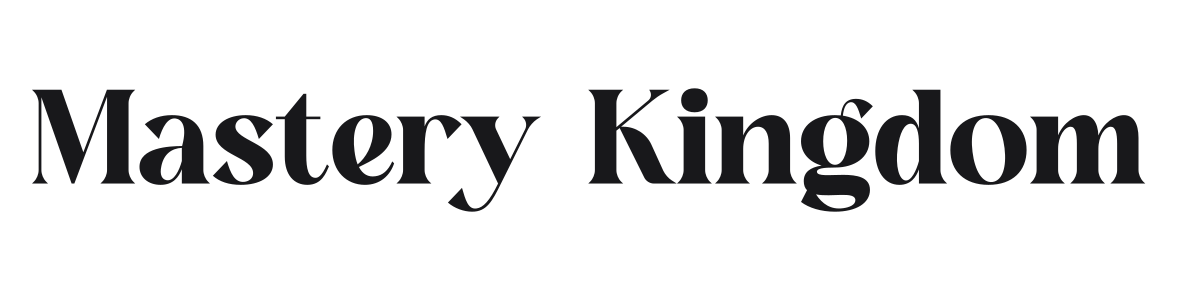
Mastery Kingdom
Mastery Kingdom is a high-contrast bold serif in the Didone tradition, built on dramatic thick-thin stroke contrast and refined ball terminals. The heavy weight gives it real presence at headline sizes, while the hairline details keep it firmly in fashion-editorial territory. It occupies the same space as the serifs you see on luxury magazine covers and perfume campaigns.